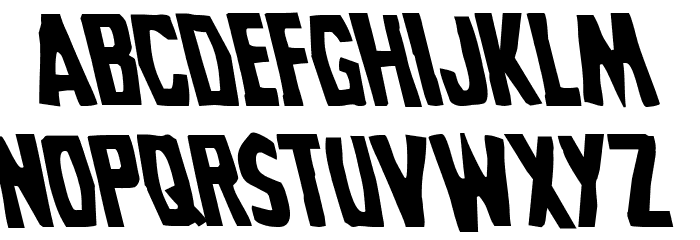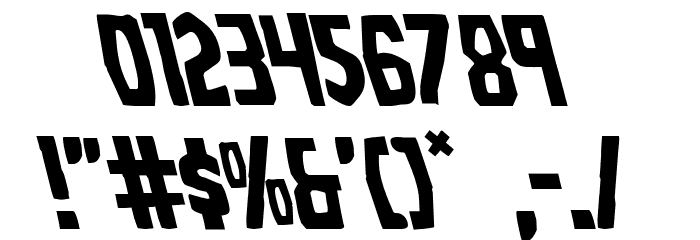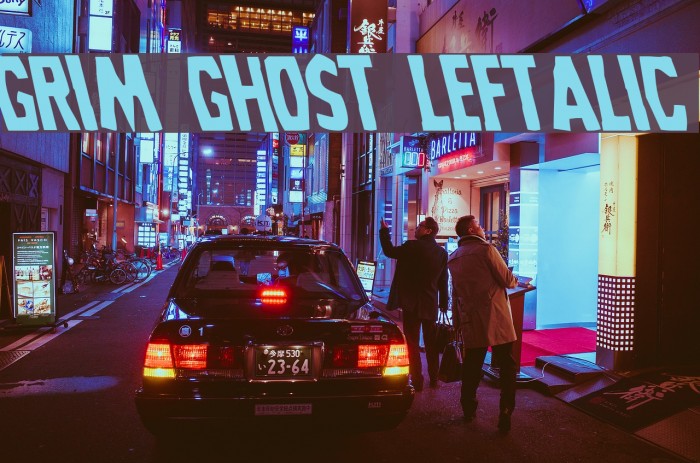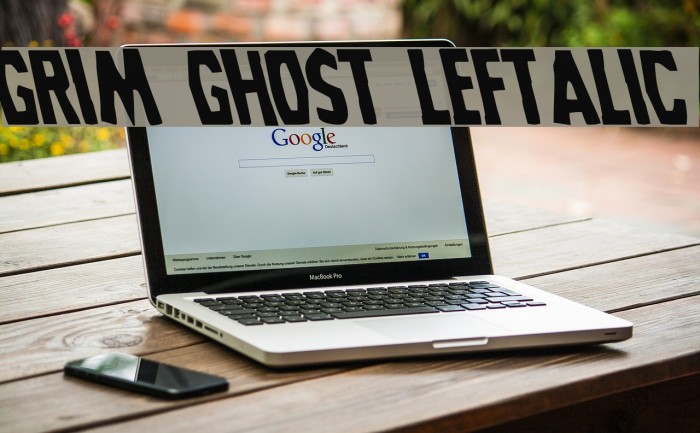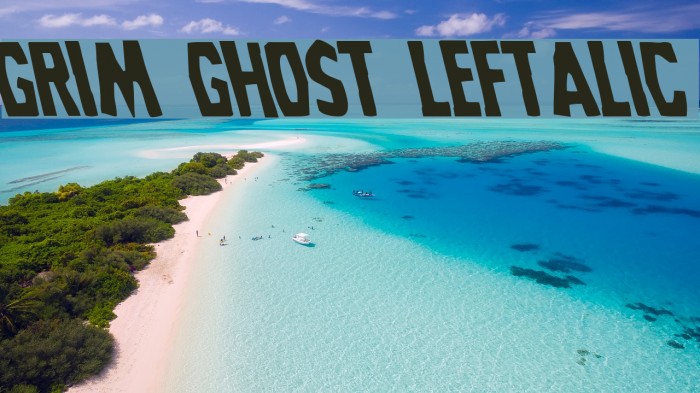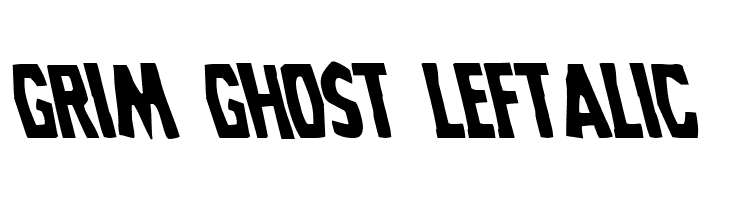
Grim Ghost Leftalic Font
This font features a bold and dynamic style with a distinct leftward slant, giving it a sense of motion and energy. The characters are thick and slightly irregular, adding a hand-drawn, edgy feel. The uppercase letters are prominent and commanding, while the lowercase letters maintain the same boldness. Numbers and special characters follow the same stylistic cues, ensuring consistency across all glyphs. The font's unique appearance makes it suitable for attention-grabbing designs.
A bold, slanted font with an edgy, hand-drawn style.
- Font: Grim Ghost Leftalic
- Proposed Projects: Ideal for posters, album covers, branding projects, and any design requiring a bold statement.
- Overall Style: Modern, Edgy